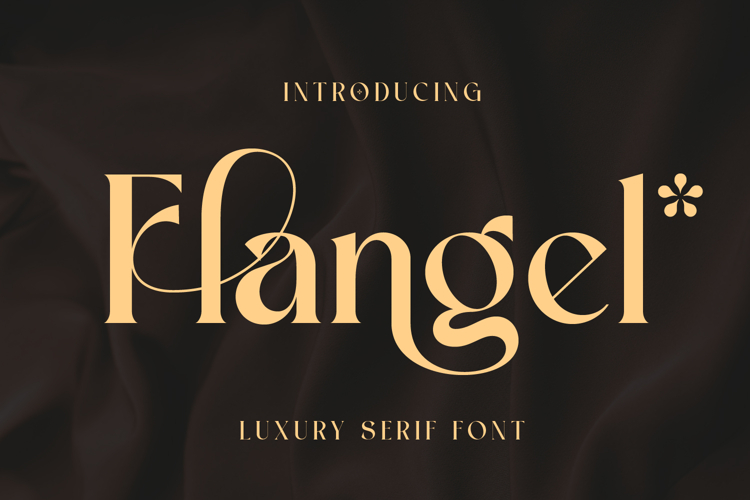
Flangel is a luxury serif typeface crafted with graceful curves, refined details, and a sophisticated modern-classic style. Designed to convey elegance and exclusivity, each letter features smooth transitions and artistic shapes that create a truly premium visual experience. Perfect for high-end branding, editorial layouts, beauty products, wedding projects, logo design, and any creative work that requires a refined and luxurious aesthetic.
With its graceful form and versatile character set, Flangel elevates every design into a polished and stylish masterpiece.